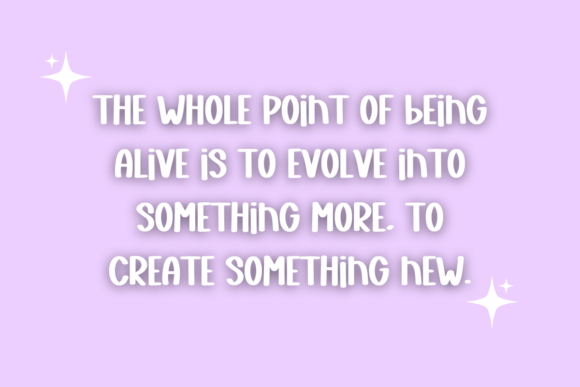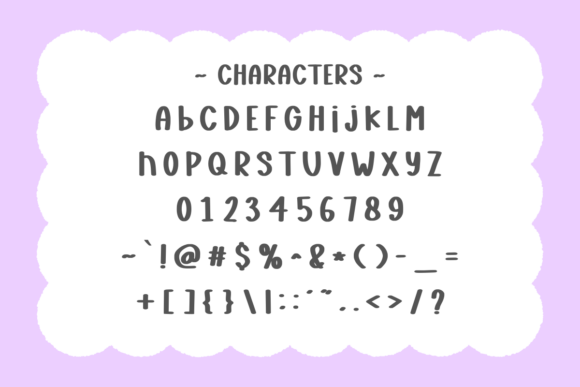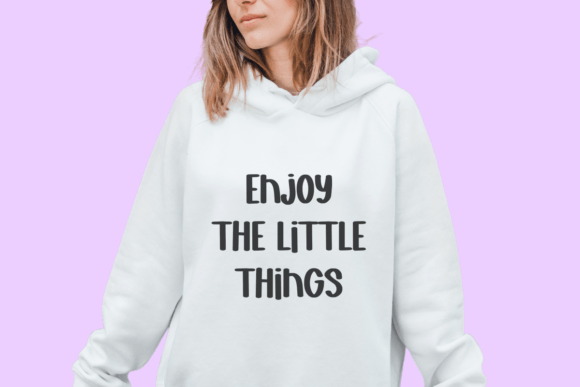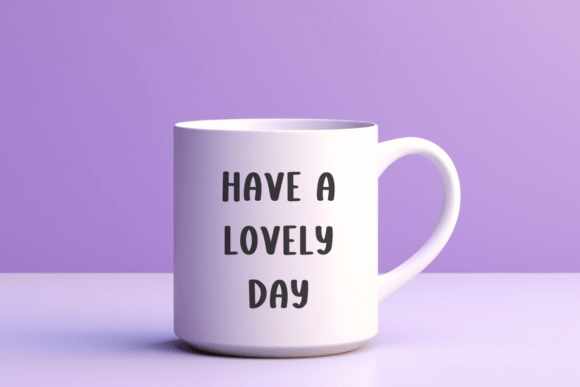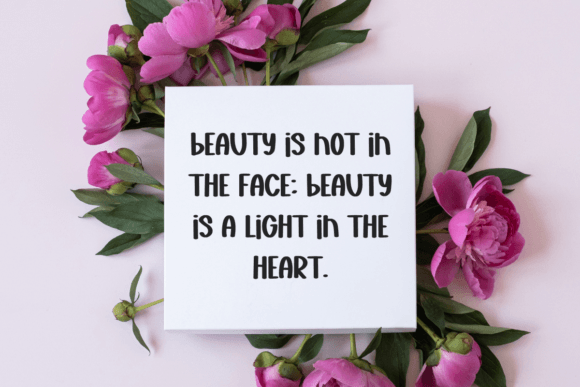
Introducing Banner Noel Font: The Perfect Handwritten Sans-Serif Font for Creative Projects
Are you a designer, crafter, or DIY enthusiast looking for a fun and cute font to add a personal touch to your projects? Look no further than Banner Noel Font! This delightful handwritten sans-serif font is perfect for a wide range of creative applications, from notes and planners to greeting cards and scrapbooks.
What is Banner Noel Font?
Banner Noel Font is a unique and charming handwritten font that is sure to capture the hearts of designers and crafters alike. Its playful and carefree vibe makes it an excellent choice for projects that require a personal and whimsical touch. Whether you’re creating notes, planners, journals, or greeting cards, Banner Noel Font is the perfect companion to help you add a dash of personality to your work.
What Can I Use Banner Noel Font For?
The versatility of Banner Noel Font is one of its standout features. This amazing font can be used for a wide range of projects, including:
- Notes and journals: Add a personal touch to your notes and journals with Banner Noel Font’s playful and cursive style.
- Planners and calendars: Create beautiful and functional planners and calendars that are both fun and practical.
- Greeting cards and invitations: Make your greeting cards and invitations stand out with Banner Noel Font’s unique and charming style.
- Scrapbooks: Add a touch of whimsy to your scrapbooks with Banner Noel Font’s delightful handwritten style.
- KDP interiors: Create stunning templates, workbooks, and to-do lists for Kindle Direct Publishing (KDP) with Banner Noel Font.
- Printables: Design fun and engaging printables, such as worksheets and activity sheets, with Banner Noel Font.
Why Should I Use Banner Noel Font?
There are many reasons why Banner Noel Font is an excellent choice for designers and crafters. Here are just a few:
- Fun and playful style: Banner Noel Font’s handwritten style is perfect for adding a touch of personality to your projects.
- Easy to read: Despite its playful style, Banner Noel Font is easy to read and understand, making it perfect for body text and headings.
- Versatile: Banner Noel Font can be used for a wide range of projects, from digital to print.
- Perfect for teachers and students: Banner Noel Font is an excellent choice for teachers and students who want to add a personal touch to their notes, planners, and projects.
Tips for Using Banner Noel Font
Here are some tips for getting the most out of Banner Noel Font:
- Experiment with font sizes: Try using different font sizes to create visual interest and hierarchy in your projects.
- Pair with other fonts: Banner Noel Font pairs well with other sans-serif fonts. Try pairing it with a bold font for headings and a clean font for body text.
- Use for headings and titles: Banner Noel Font is perfect for headings and titles. Use it to add a touch of personality to your projects.
In conclusion, Banner Noel Font is a fun, cute, and versatile handwritten sans-serif font that is perfect for designers, crafters, and DIY enthusiasts. Its playful style and ease of use make it an excellent choice for a wide range of creative projects, from notes and planners to greeting cards and scrapbooks. Whether you’re a teacher, student, or crafter, Banner Noel Font is sure to become a favorite font in your collection.